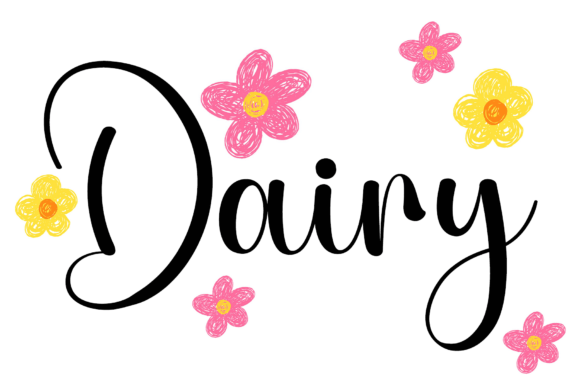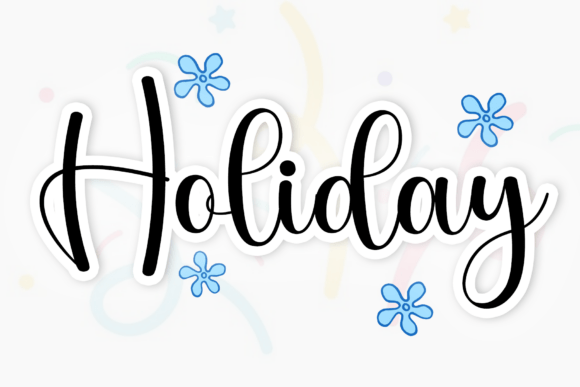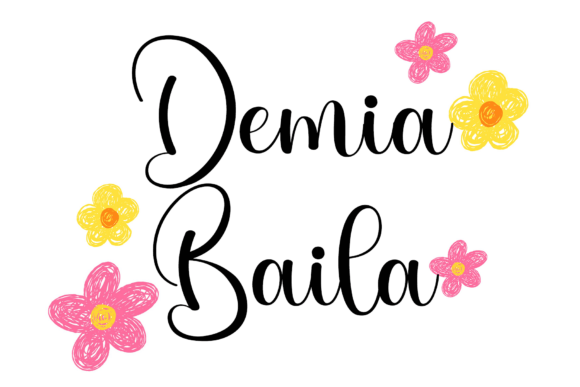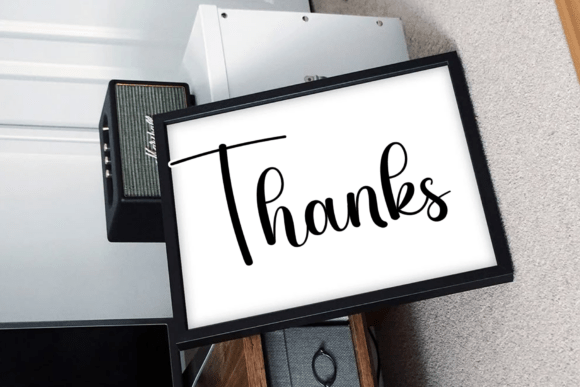
Introducing Birthday Font: Elevate Your Brand with Sophistication and Whimsy
When it comes to creating a lasting impression, the right typography can make all the difference. For designers and crafters seeking to add a touch of elegance and personality to their projects, the Birthday font is an exceptional choice. This sophisticated and rhythmic script font strikes the perfect balance between a calligraphic style and a warm, organic aesthetic, making it ideal for a variety of applications.
The Distinctive Charm of Birthday Font
The defining characteristic of the Birthday font is its use of sweeping, looping ascenders that create a sense of customized, artisanal artistry. These fluid strokes bring a sense of movement and whimsy to the font, setting it apart from more traditional typography. The result is a font that exudes a sense of luxury and refinement, perfect for brands and projects that demand a high level of sophistication.
Ideal Applications for Birthday Font
Given its unique blend of elegance and playfulness, the Birthday font is well-suited for a range of applications, including:
- Artisanal Food Branding: Add a touch of gourmet flair to your food brand with the Birthday font. Its sophisticated and whimsical feel makes it perfect for labeling specialty foods, bakeries, or restaurants.
- Boutique Product Packaging: Elevate your product packaging with the Birthday font. Its unique blend of style and charm makes it an excellent choice for luxury goods, handmade products, or high-end cosmetics.
- Upscale Lifestyle Marketing: Use the Birthday font to create eye-catching marketing materials for high-end lifestyle brands, including hotels, resorts, or luxury automotive companies.
- Creative Editorial Titles: Add a touch of elegance to your editorial content with the Birthday font. Its sophisticated feel makes it perfect for titles, headings, or pull-quotes in high-end publications or literary magazines.
Design and Crafting Inspiration
For designers and crafters, the Birthday font offers endless possibilities for creative expression. Here are a few ideas to get you started:
- Wedding Stationery: Use the Birthday font to create beautiful wedding invitations, save-the-dates, or thank-you cards.
- Custom Signage: Add a touch of elegance to your custom signage with the Birthday font. Its whimsical feel makes it perfect for boutique shops, restaurants, or event spaces.
- Handmade Products: Use the Birthday font to create labels, packaging, or branding materials for your handmade products, such as jewelry, candles, or soaps.
Why Choose Birthday Font?
With so many fonts to choose from, why opt for the Birthday font? Here are just a few reasons why designers and crafters love this sophisticated script font:
- Unique Style: The Birthday font offers a distinctive blend of elegance and whimsy that’s hard to find in other fonts.
- High Versatility: The font is suitable for a wide range of applications, from artisanal food branding to creative editorial titles.
- Easy to Read: Despite its ornate feel, the Birthday font is surprisingly easy to read, making it perfect for body text or headlines.
In conclusion, the Birthday font is an exceptional choice for designers and crafters seeking to add a touch of sophistication and whimsy to their projects. Its unique blend of elegance and playfulness makes it perfect for a range of applications, from artisanal food branding to creative editorial titles. With its high versatility, ease of use, and distinctive style, the Birthday font is sure to become a favorite in your typography arsenal.